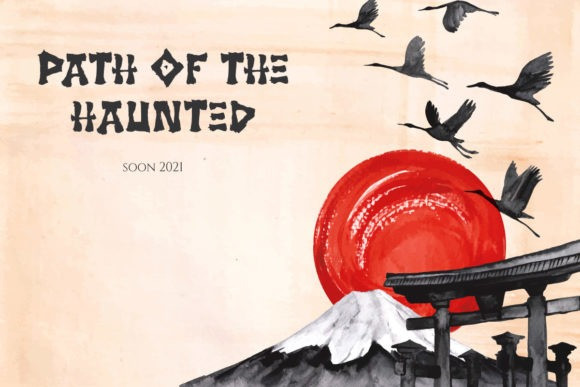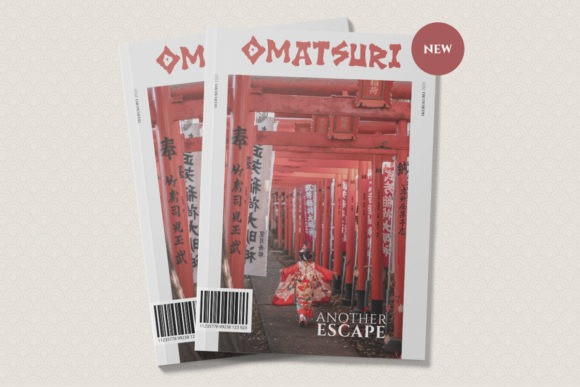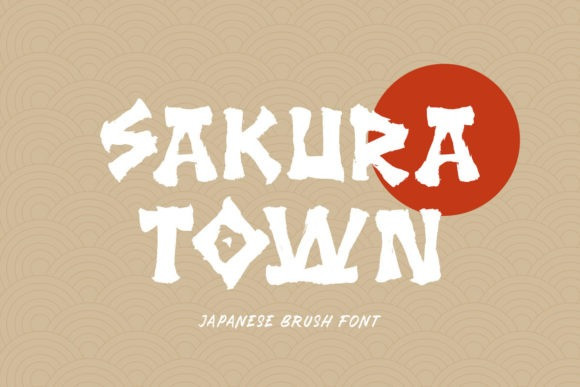
Sakura Town Font
Sakura Town Brush Font is a cool, bold and brushed display font. This Japanese font is suitable for designs such as t-shirts, sportswear, logos, advertisements, clothing, and more.